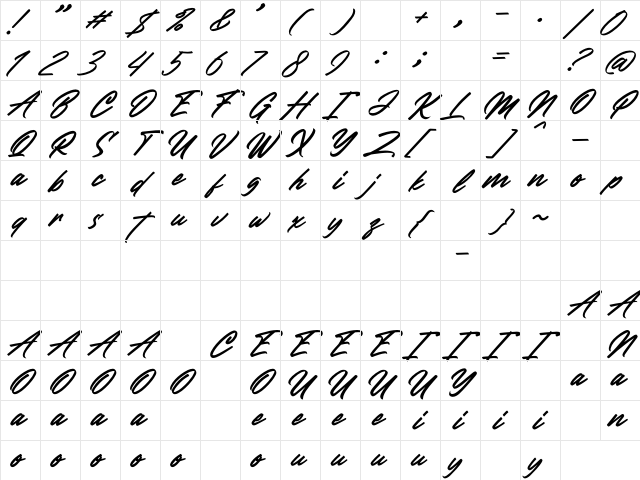
Complete Delegante Champion Regular glyph index. Displaying only characters natively supported by Delegante Champion Regular font.
Delegante Champion is a composed and adaptable typeface that performs quietly and consistently across a wide range of design contexts.